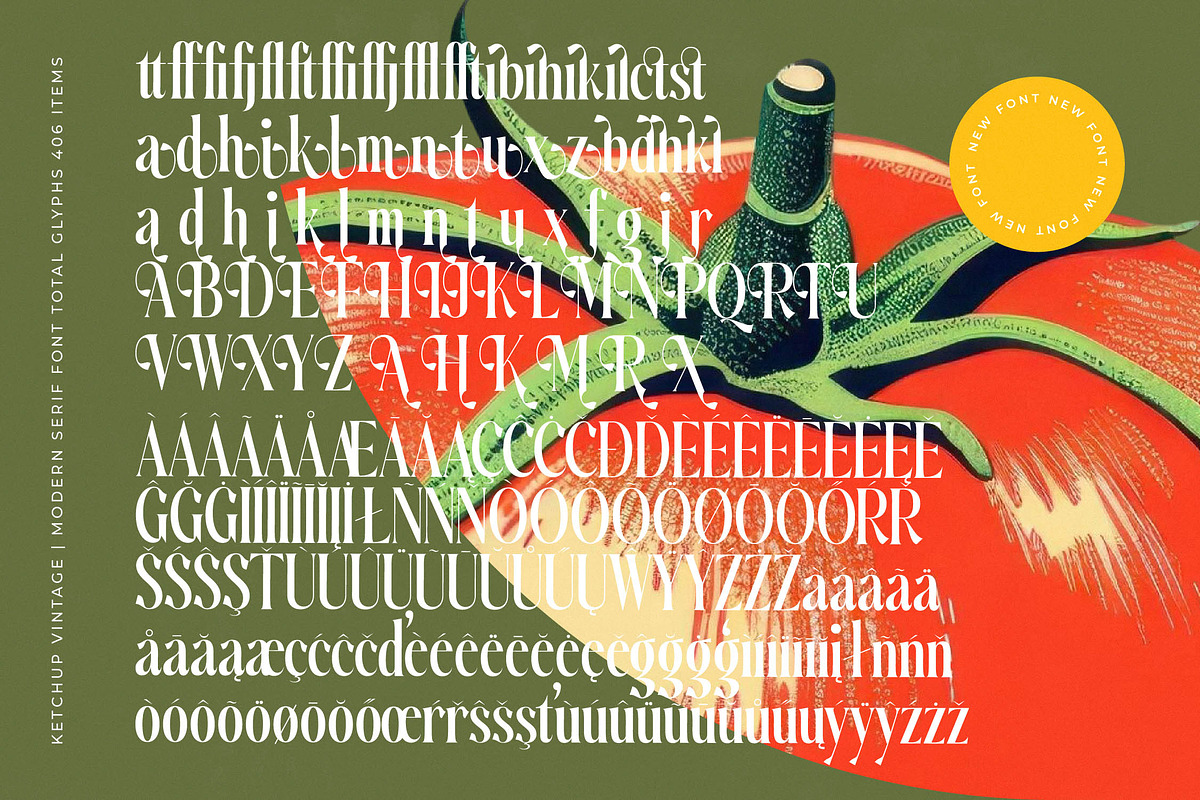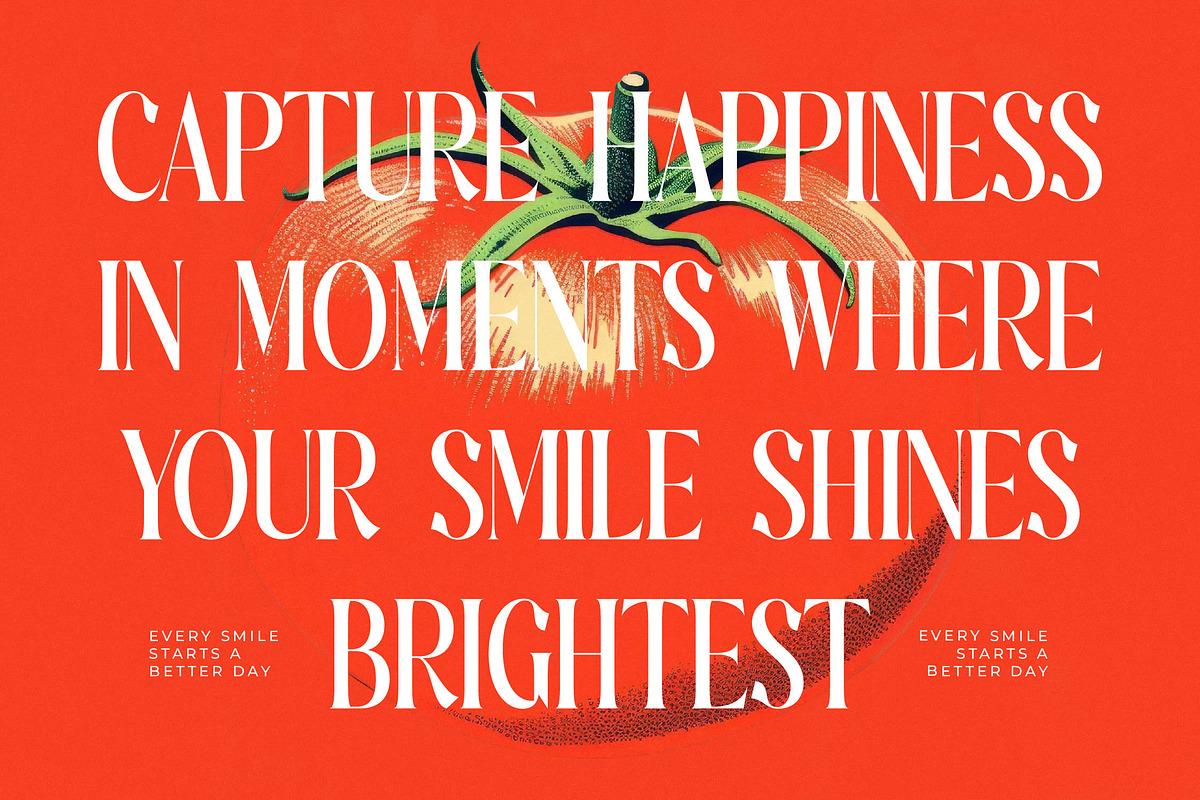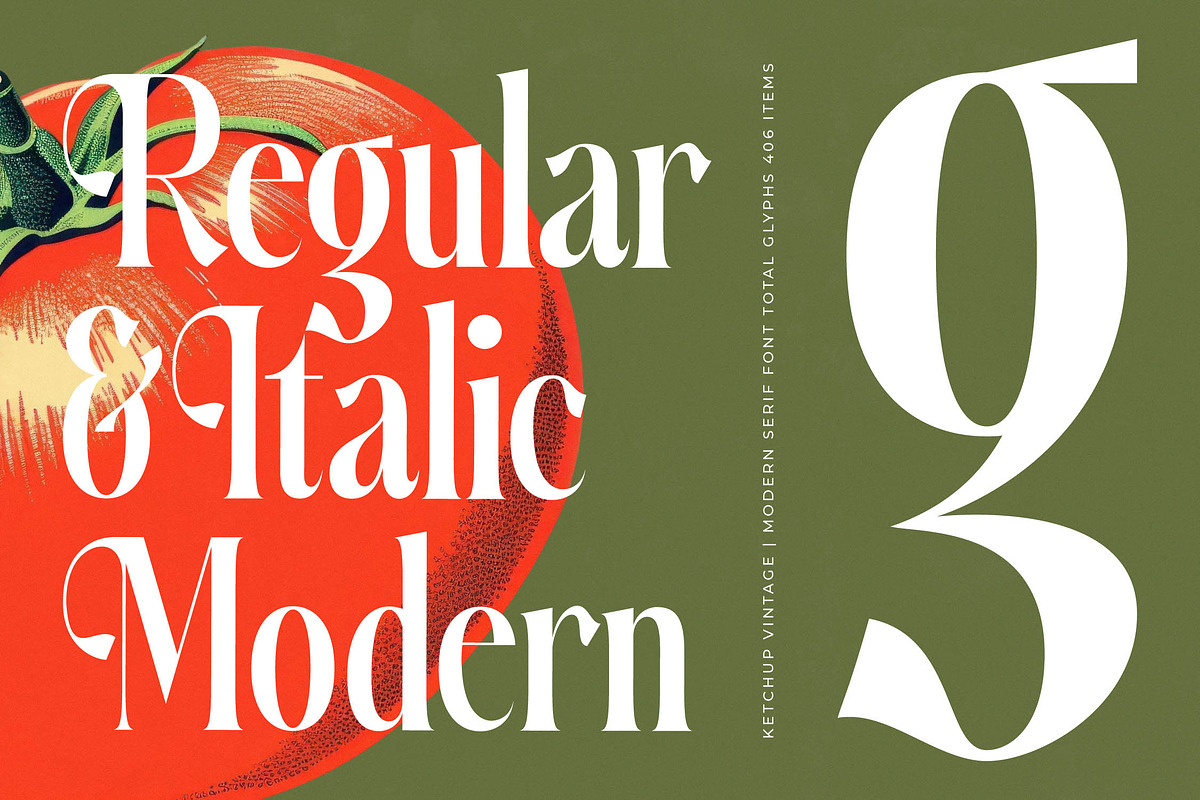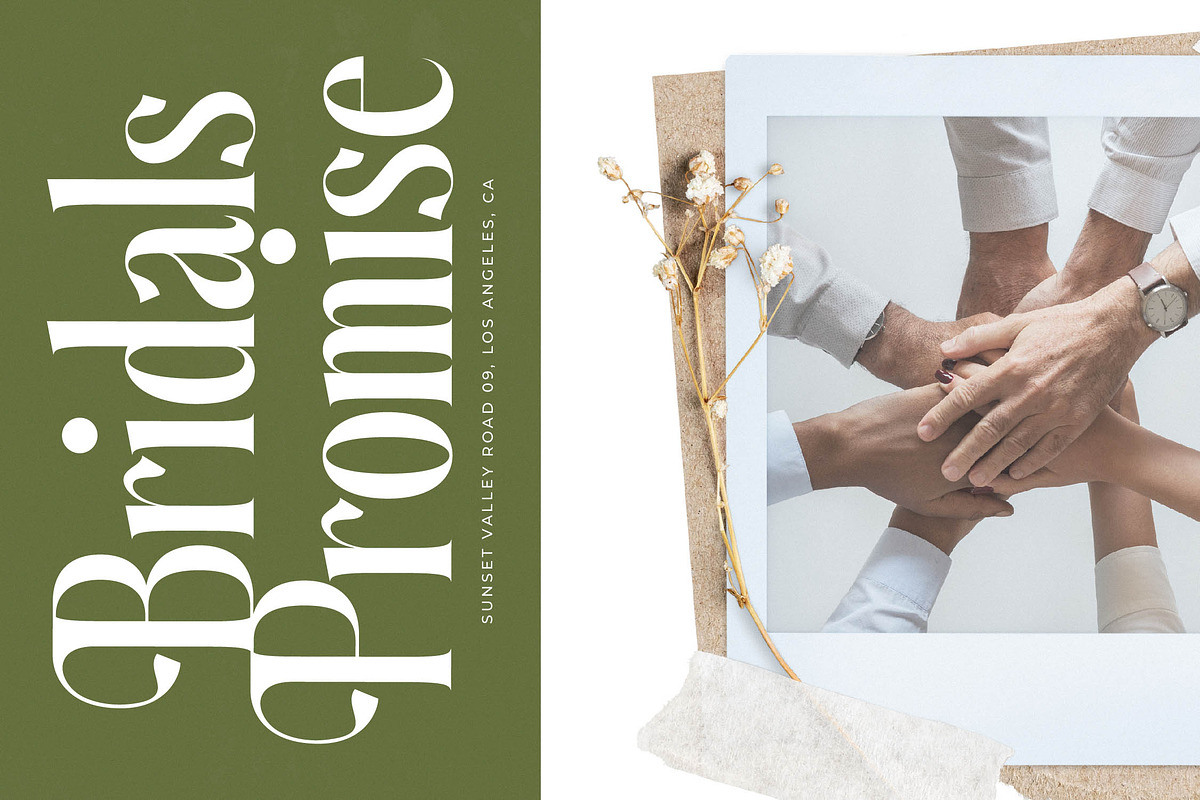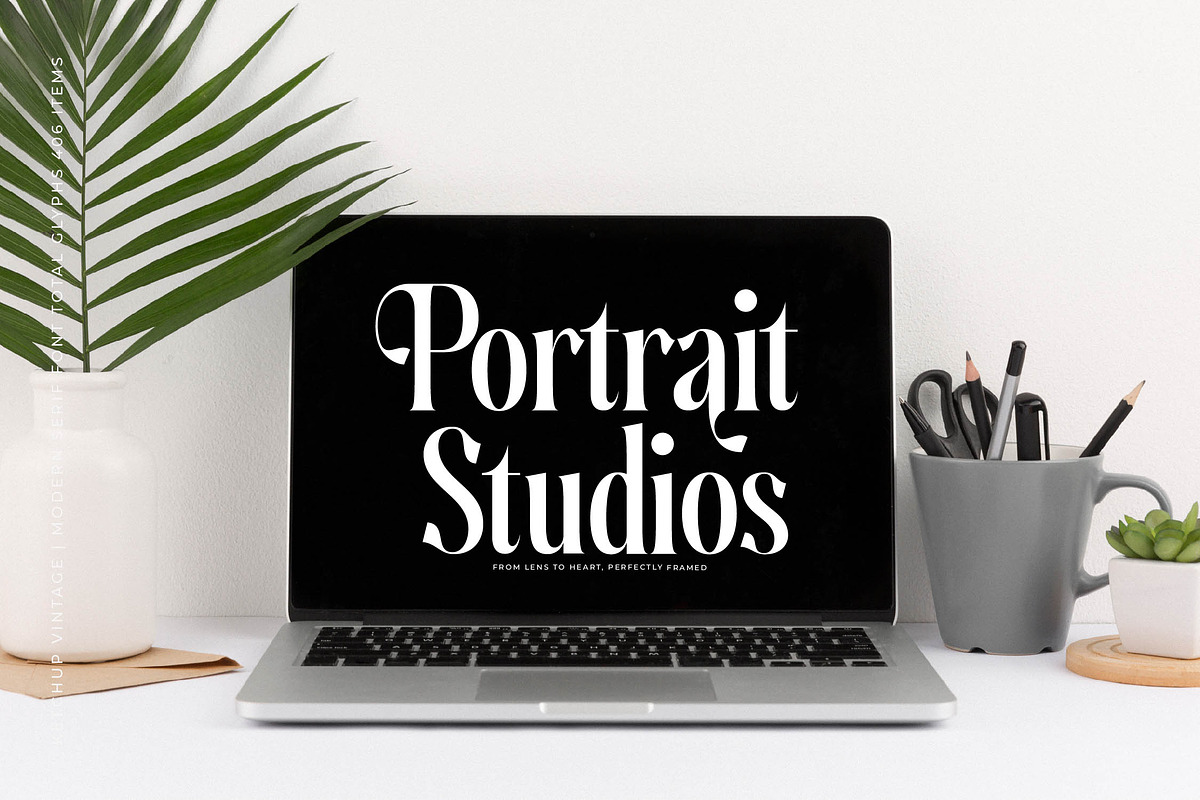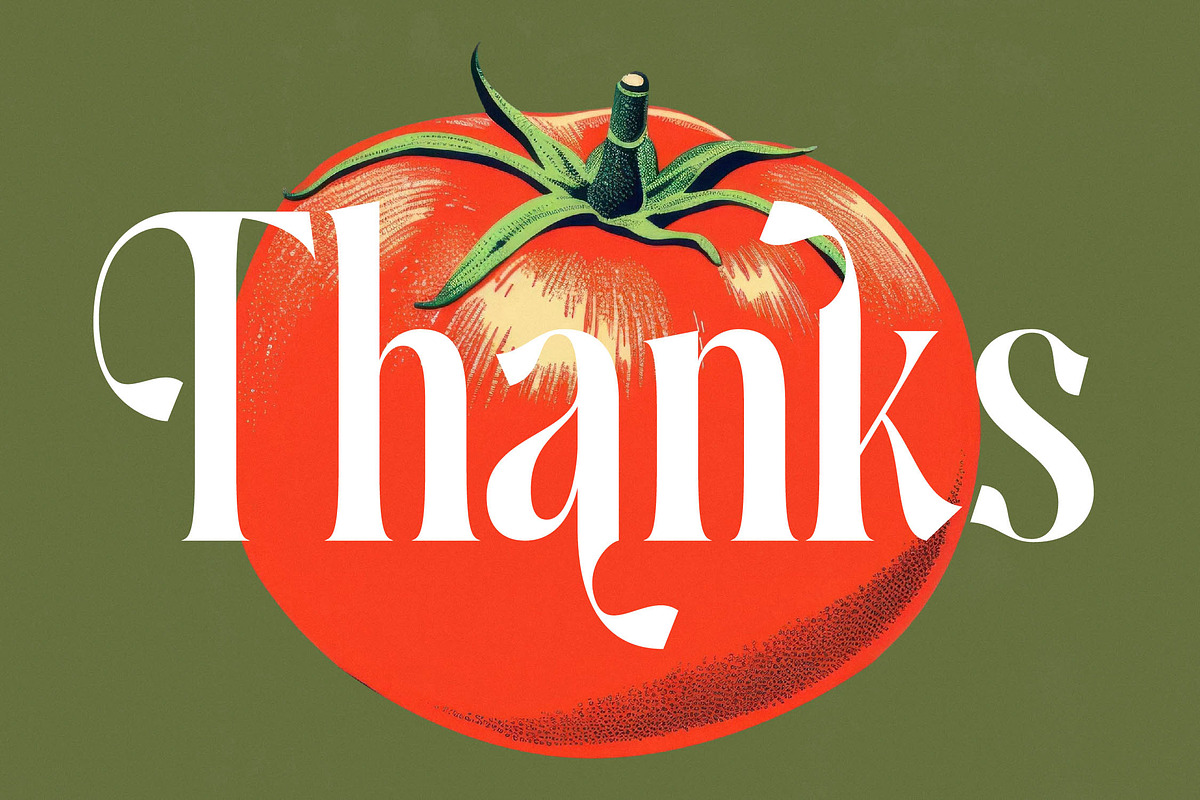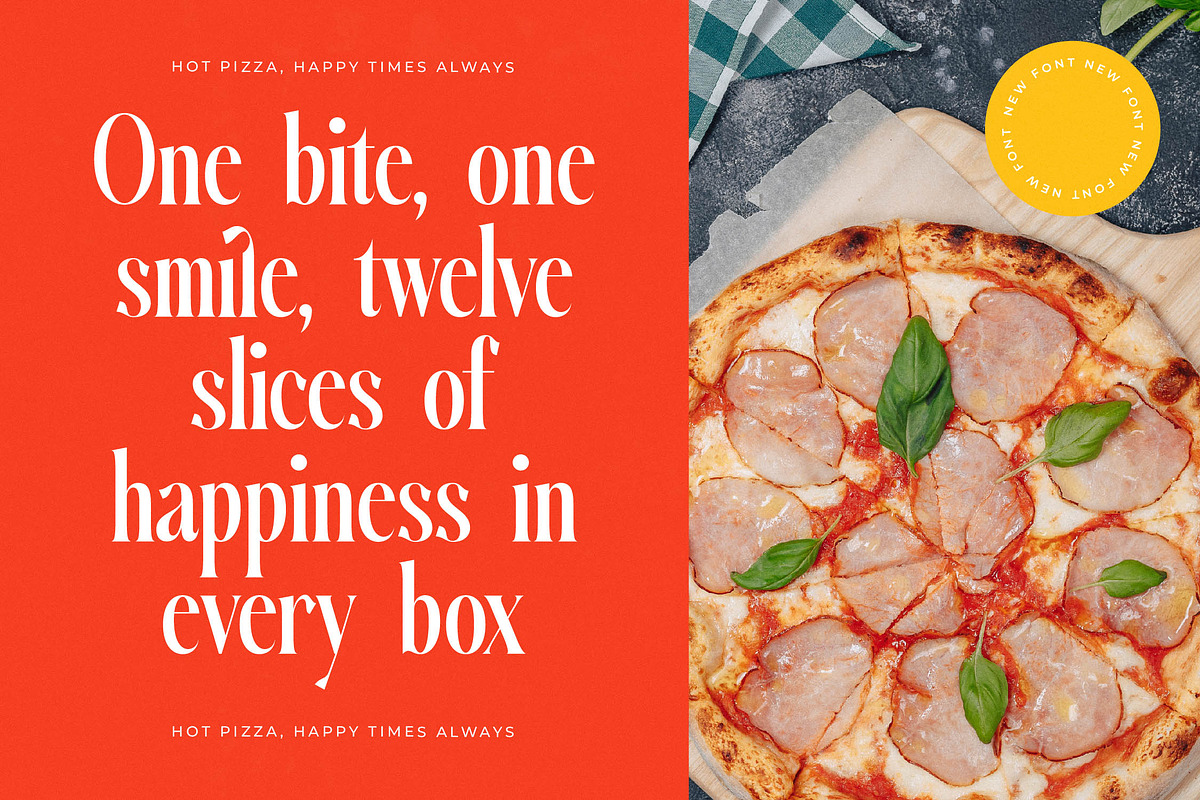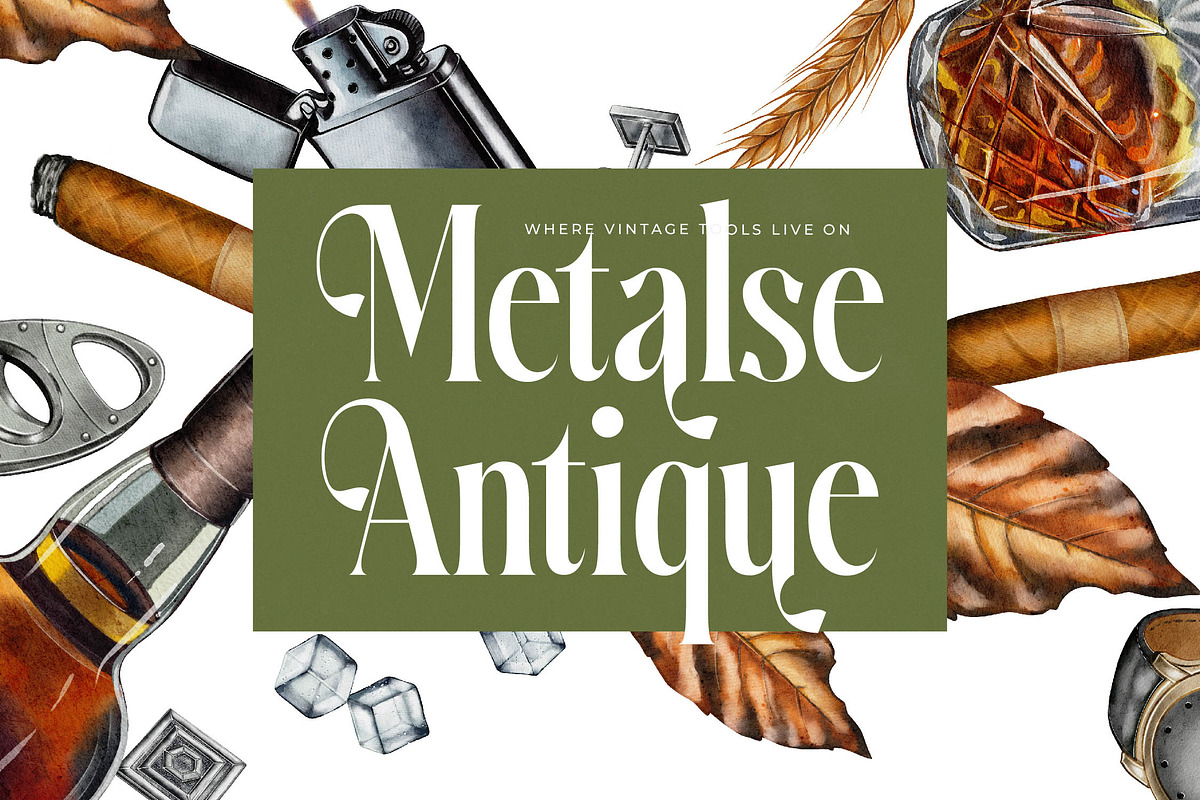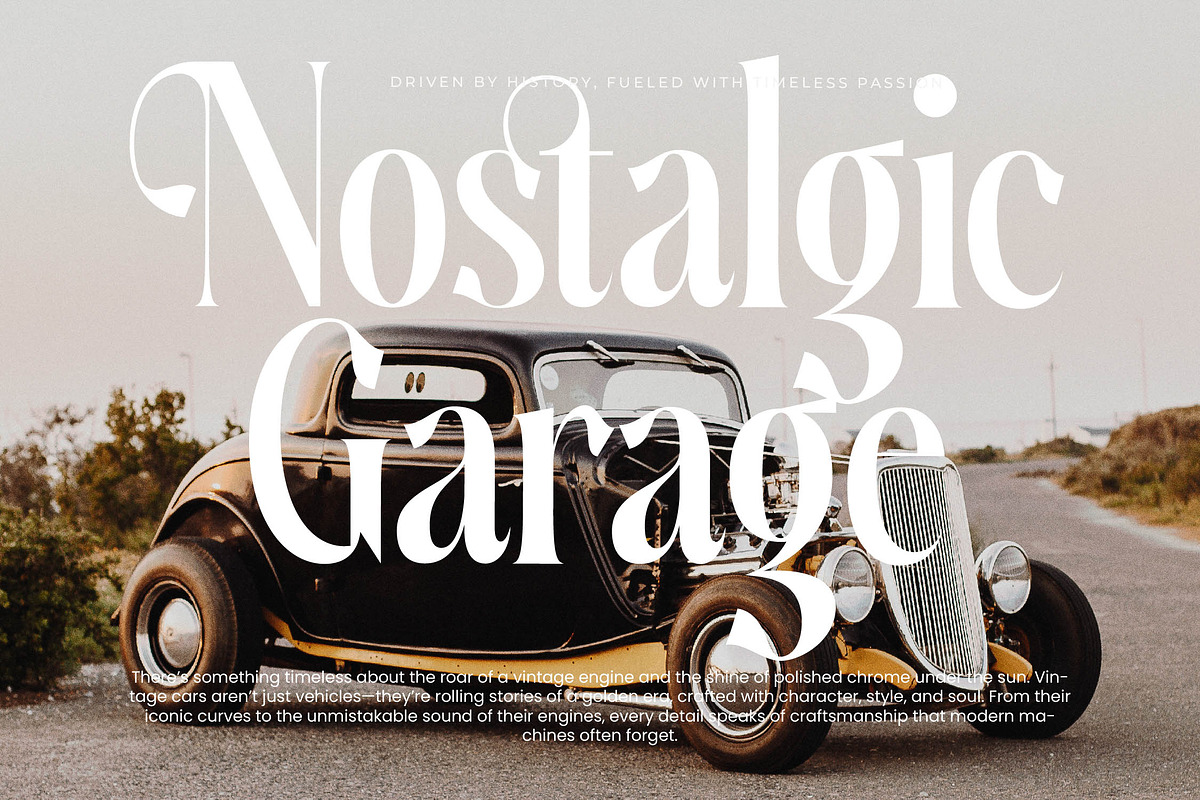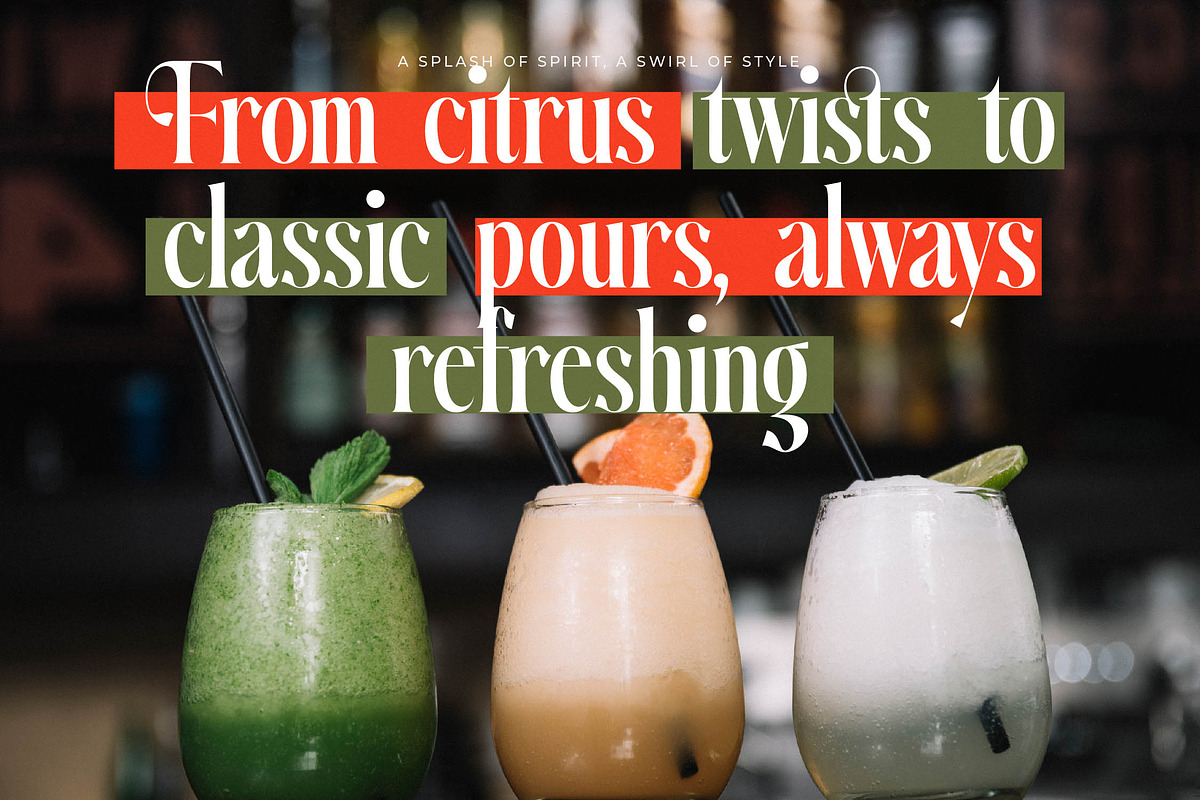
Ketchup Vintage Modern Serif
Ketchup Vintage is a masterclass in blending nostalgic charm with contemporary elegance, offering a visual feast for any design layout. This font breathes life into every headline with its sophisticated curves and commanding presence.
Inspired by the vibrant heritage of mid-century advertising and organic food labels, the design captures the lush, ripe essence of its namesake. It evokes a sense of high-end artisanal quality found in classic kitchen staples and heritage brands.
With its modern serif display style, this typeface is engineered for luxury typography that demands immediate attention. The high-contrast serif strokes create a rhythmic flow perfect for an editorial font seeking maximum branding impact.
Tapping into the current modern serif trend, this typeface fulfills the global demand for editorial display fonts that feel both timeless and fresh. It is the definitive choice for designers looking for character-driven typography that breaks away from the ordinary.
This versatile typeface excels in logo design and high-end branding projects where personality is paramount. It is equally at home in editorial layouts, boutique food packaging, romantic wedding stationery, or avant-garde fashion magazines.
The font includes an extensive collection of ligatures and unique alternates to customize every word and phrase. It also features decorative swashes and full multilingual support with over 400 international characters for global creative reach.
- Ligature 16 Alternate 60